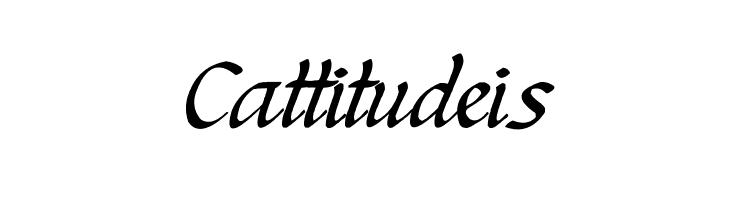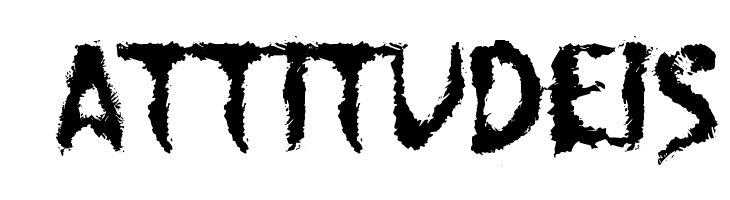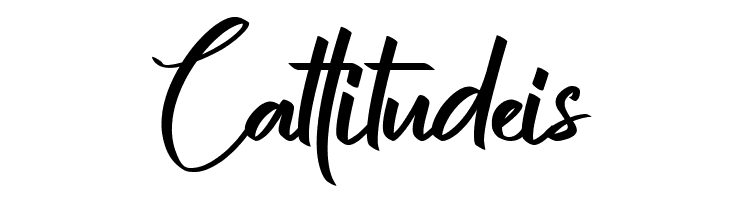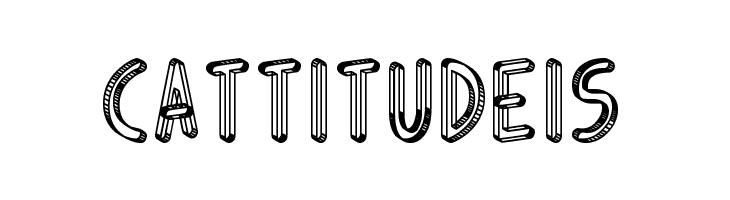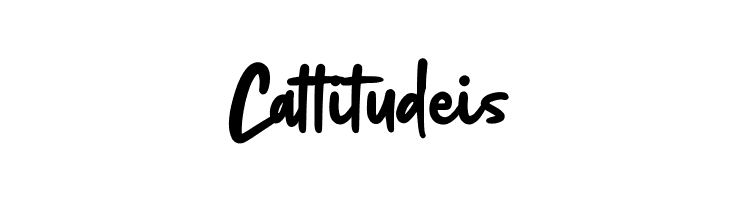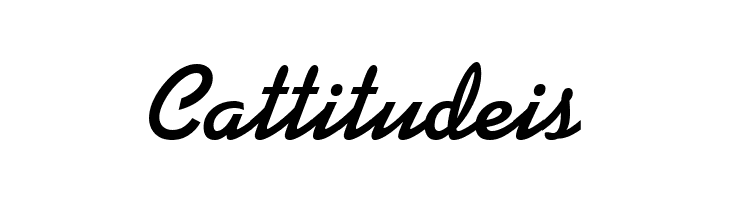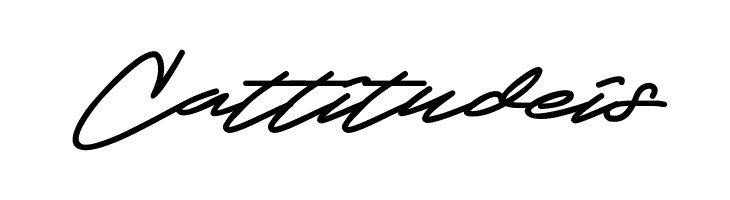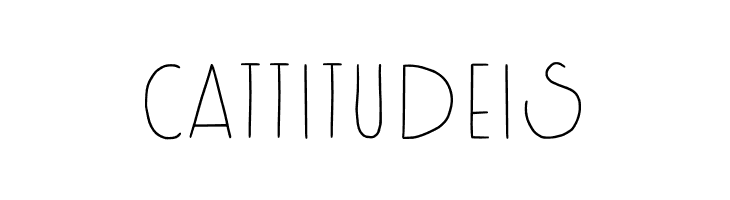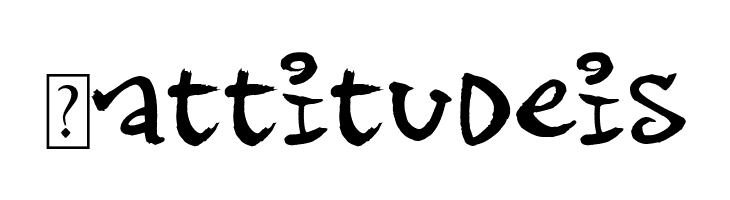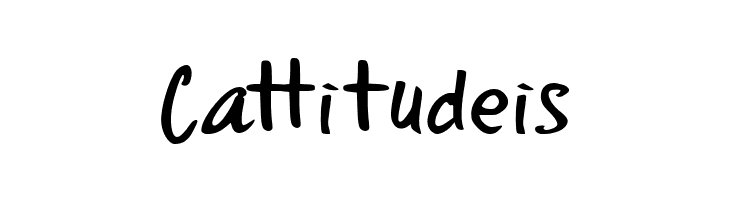
A bold, modern font with clean, geometric lines and slightly rounded characters.
A playful, hand-drawn font with dynamic and whimsical characters.
A bold, playful font with rounded edges and a hand-drawn feel.
A bold, rounded font with a playful, hand-drawn style.
A dynamic, slanted handwritten font with fluid strokes and a personal touch.
A casual handwritten font with dynamic strokes and an organic feel.
A bold, decorative 3D font with intricate patterns and a playful style.
A cursive, handwritten-style font with elegant, flowing characters.
A bold, grungy font with a distressed, brush-painted look.
A bold, distressed font with a rough, textured appearance.
A bold, playful handwritten font with dynamic strokes.
A bold, playful handwritten font with a lively and informal style.
A bold, decorative font with a striped pattern and geometric structure.
A playful, bold font with quirky, uneven strokes and a whimsical style.
A lively and energetic handwritten font with fluid strokes and a casual style.
A cursive, handwritten-style font with elegant, flowing strokes.
A bold, geometric font with a modern and structured design.
A modern, italicized font with consistent stroke thickness and dynamic style.
A bold, gothic-inspired font with sharp, angular lines and dramatic curves.
A playful, hand-drawn font with bold, irregular characters and a whimsical touch.
A modern, fluid font with artistic loops and curves.
A modern, geometric font with rounded edges and a clean, futuristic style.
A playful, bold font with rounded edges and a hand-drawn style.
A playful, bone-like decorative font with a hand-drawn aesthetic.
A dynamic handwritten font with smooth, fluid strokes and a casual elegance.
A classic calligraphic font with elegant, flowing strokes and traditional style.
A playful, hand-drawn font with tall, narrow letters and a whimsical style.